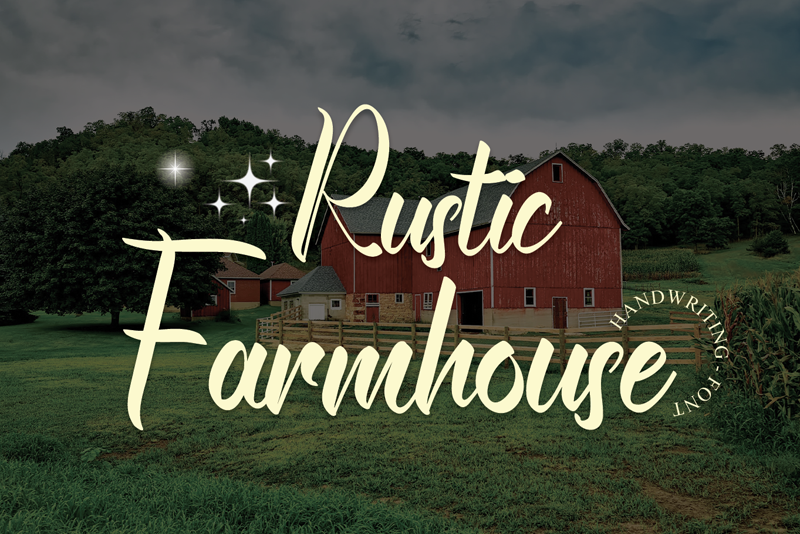
Rustic Farmhouse is an elegant script font with a contemporary atmosphere and impeccable form, inspired by timeless classic calligraphy. Not too thin and not too thick, balanced and varied, this font was designed to enhance the beauty of your projects Attention : Rustic Farmhouse handwriting Font is prohibited to use this font for commercial purposes or for profit without the permission of the author/admin, without being known to use this font without permission, will be subject to sanctions 5x the specified price. This font is used only for demos (Demo license) If you want to use this font for commercial use please contact email: luluksurotul123@gmail.com or click the link below: https://www.creativefabrica.com/product/rustic-farmhouse-2/ref/698281/ If you want to see more other fonts, please click: https://www.creativefabrica.com/designer/behind-the-ink/ref/698281/ Any donations are very appreciated. Paypal account for donation: https://www.paypal.com/paypalme/luluk783 thanks. |